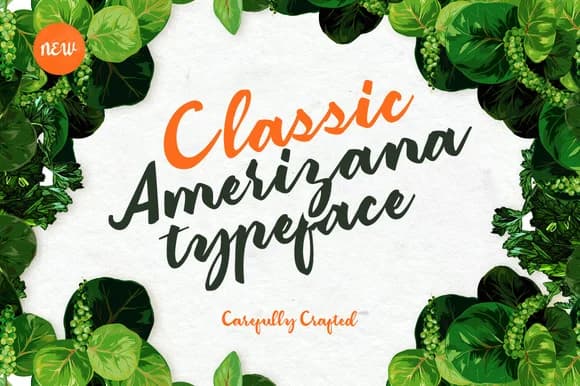
Amerizana Font by Ease Type is a flowing script typeface that captures the essence of hand-lettered traditions, merging the organic warmth of informal calligraphy with dependable readability across sizes. The letterforms possess an authentically personal quality that conveys handwritten craftsmanship while maintaining clarity in both display and body text, striking a balance between artistic expression and functional legibility that appeals to designers seeking character-driven typography.
This script typeface excels for wedding invitation suites, where its graceful letterforms bring timeless sophistication to formal stationery. Beyond celebrations, creatives employ Amerizana for personalized gift tag design, artisanal product packaging labels on everything from boutique skincare to handmade chocolates, and small business branding where that handwritten touch differentiates a brand in crowded markets. The flowing baseline and stylistic swashes also enhance editorial layouts, social media graphics, and greeting card designs with distinctive personality.
Amerizana Font is a script font that shines as a display or heading face. Pair it with a clean sans-serif or serif font for body text — the contrast creates a clear hierarchy while the two styles stay balanced and easy to read.
Amerizana Font
by Ease Type